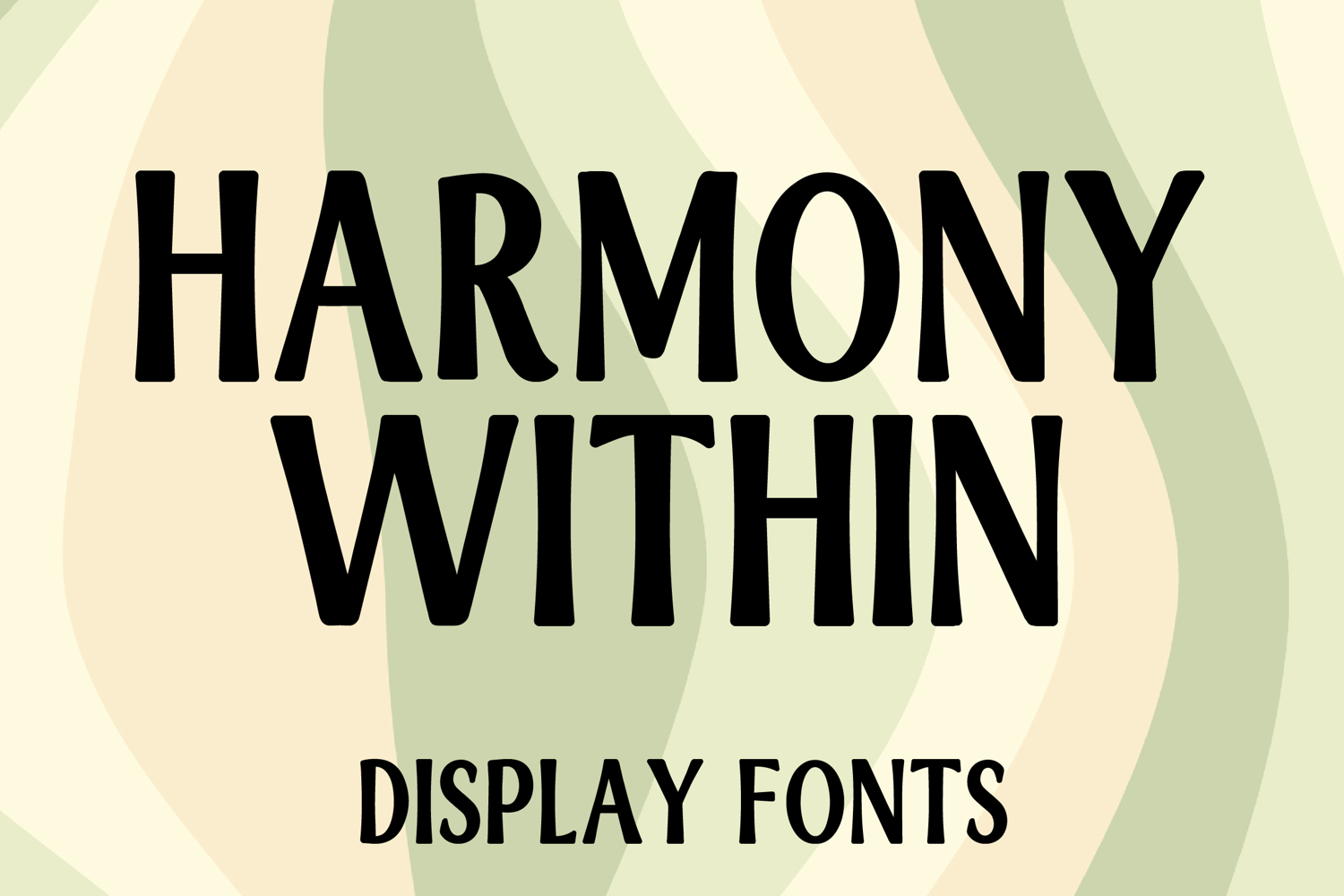
HARMONY WITHIN
HARMONY WITHIN is a bold display font with a tall hand-drawn style and clean expressive character. Its uppercase letterforms feature strong vertical shapes, slightly irregular edges, and a soft artistic feel that creates a modern, warm, and eye-catching look. Designed with uppercase letters A–Z and numbers 0–9, HARMONY WITHIN is perfect for branding, posters, packaging, logos, headlines, social media graphics, and creative projects that need a stylish and memorable statement.